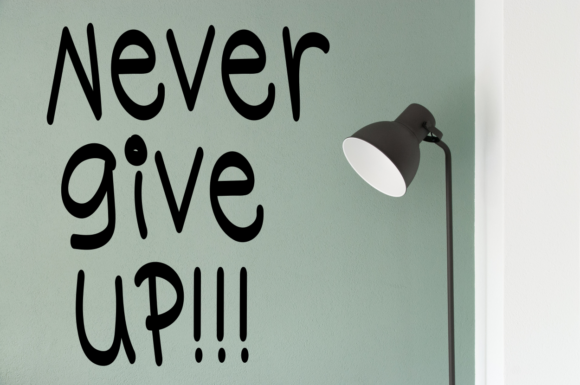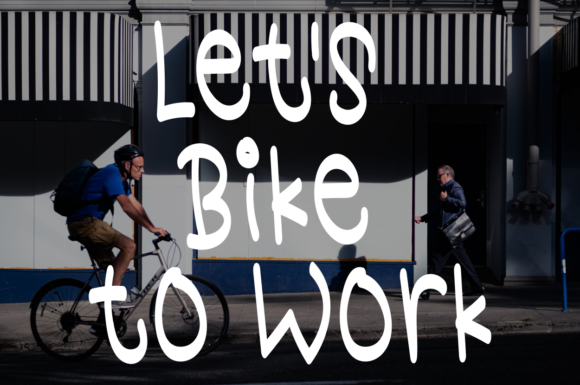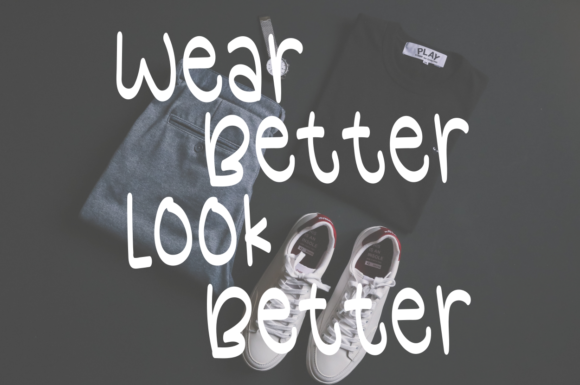
The Charming Font: A Simple yet Versatile Handwritten Delight
I’ll never forget the time I was working on a project for a client who wanted a custom font for their branding. I had spent hours scouring the internet for the perfect font, but nothing seemed quite right. That was until I stumbled upon Charming, a simple and quirky handwritten font that instantly caught my eye. Its friendly feel and versatility won me over, and I knew I had found the perfect fit for my client’s project.
An Honest Review of Charming
- ✨ Friendly and approachable feel that’s perfect for a wide range of contexts
- ✅ Simple yet quirky design that adds a touch of personality to any project
- 💕 Highly legible, even at small sizes
- 🎨 Highly versatile, suitable for both digital and print projects
While Charming is an excellent font, there are a few things to keep in mind:
- ⚠️ Some characters may not work well in all contexts, such as all-caps headings
- 🤔 Limited availability of certain OpenType features, such as ligatures
A Practical Guide to Using Charming
The Story Behind Charming
Charming was designed by a talented typographer who wanted to create a font that was both simple and quirky. The designer drew inspiration from classic handwritten fonts, but with a modern twist. The result is a font that’s both friendly and approachable, making it perfect for a wide range of contexts.
Q: What is Charming best suited for?
A: Charming is a versatile font that’s suitable for a wide range of contexts, including thank you cards, quotes, greeting cards, logos, business cards, and more.
Q: Is Charming a difficult font to read?
A: No, Charming is a highly legible font that’s easy to read, even at small sizes.